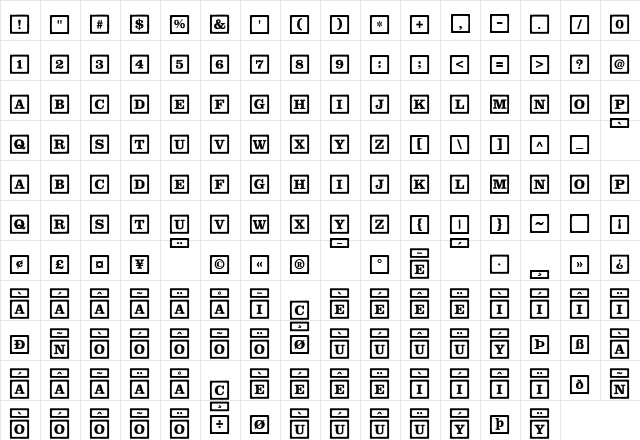
ChildsPlayBlocksLine Roman
Design Context for ChildsPlayBlocksLine Typeface
ChildsPlayBlocksLine trades formality for fun, with bouncy, characterful letterforms that bring warmth and energy to any project.
Font Pairing: Pairs well with a rounded or humanist sans for body copy, maintaining the friendly tone without relying on ChildsPlayBlocksLine to carry extended reading.
Pro Tip: Use ChildsPlayBlocksLine at larger display sizes where its expressive character can land. Pair with a clean, simple sans for body copy to maintain readability.